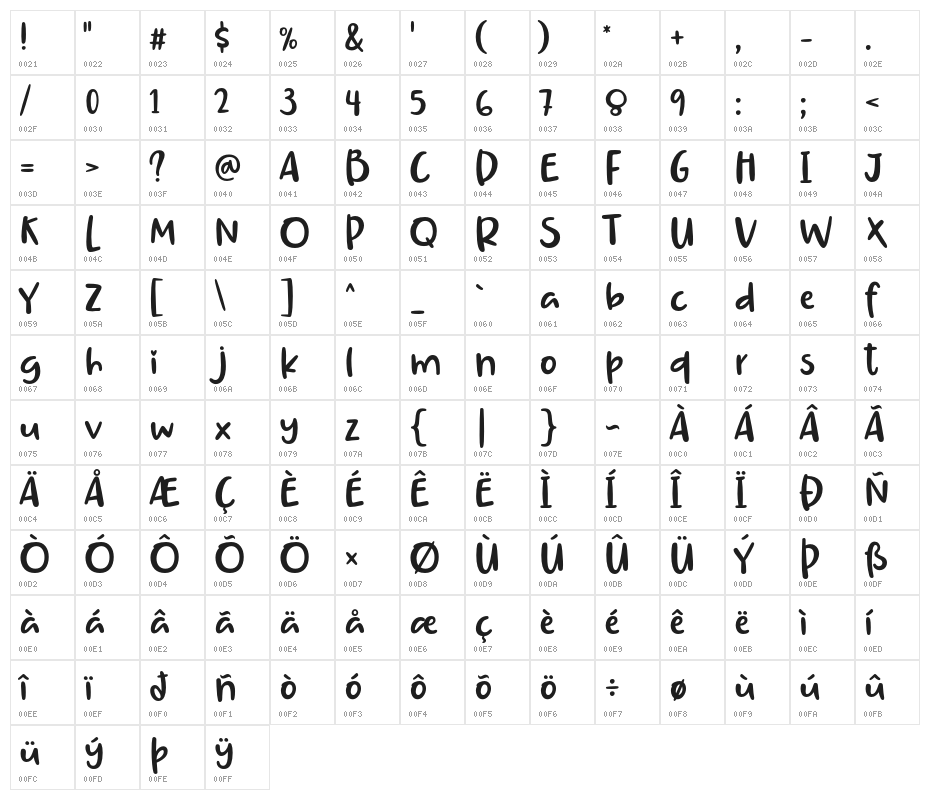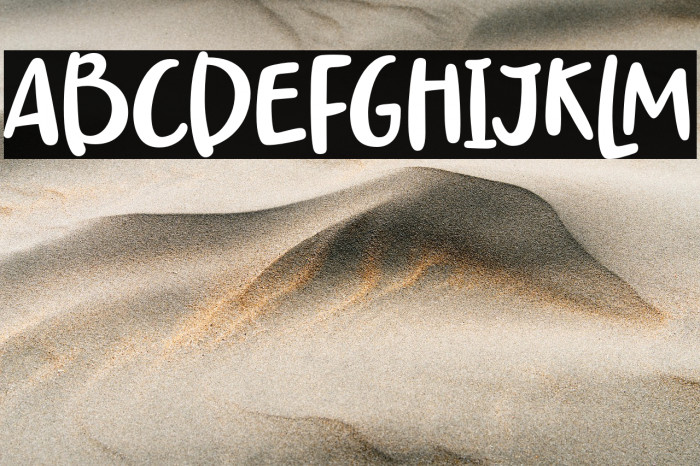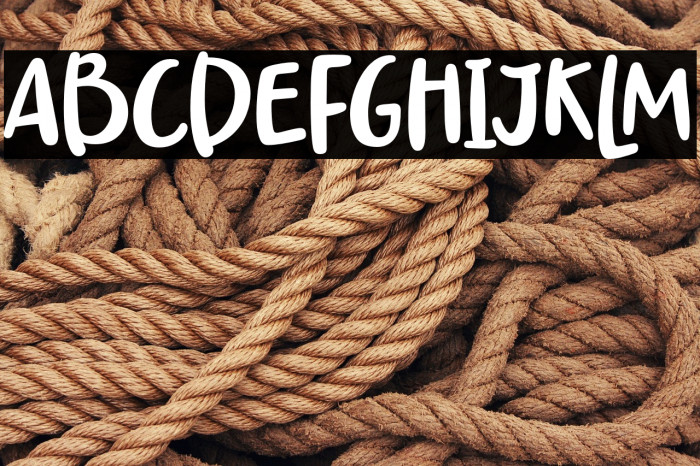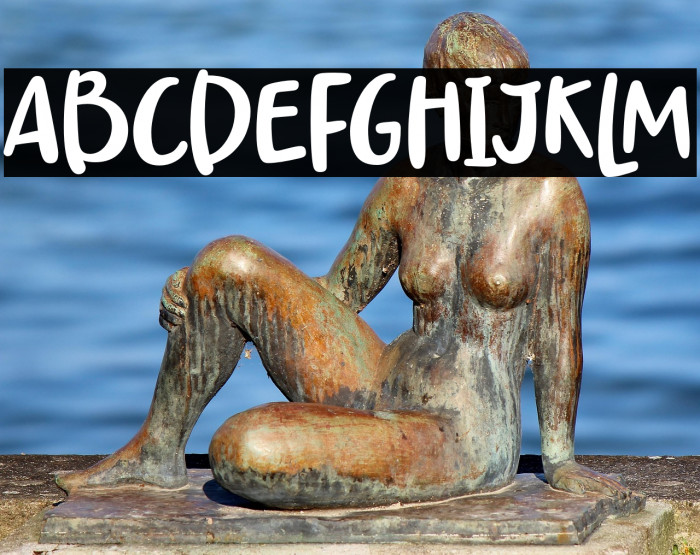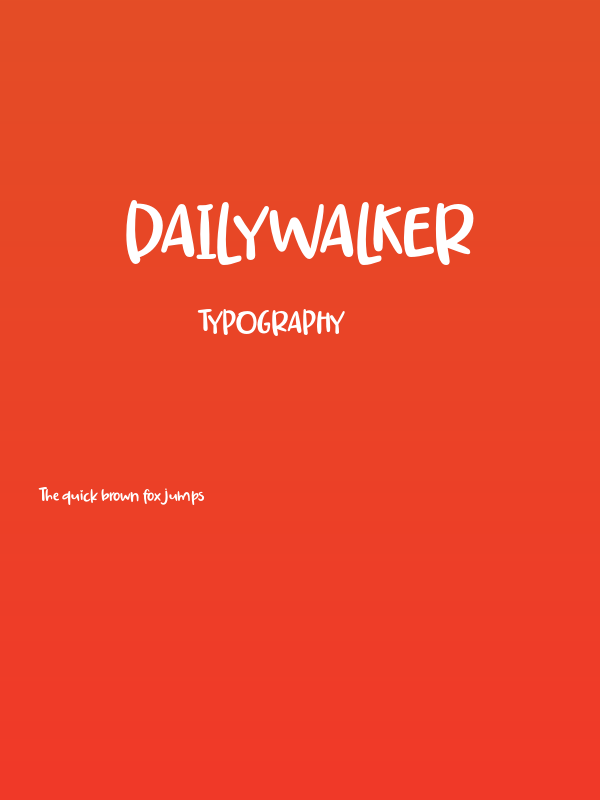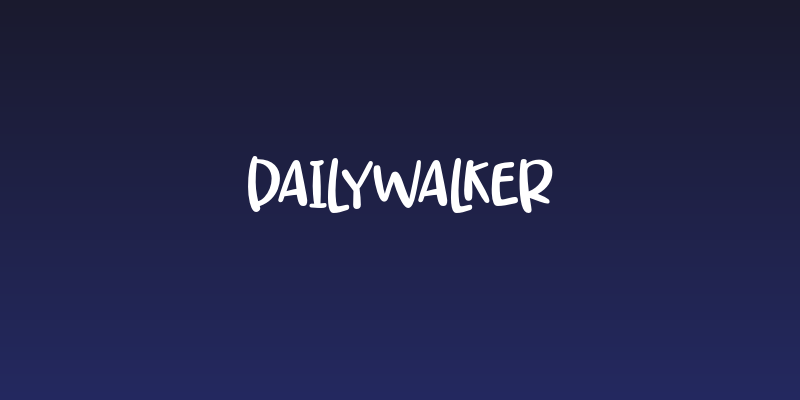
DailyWALKER Font
| Gesamtstil | Casual |
| Anwendungsfall | Headlines, Logos, Informal Text |
| Vorgeschlagene Projekte | Ideal for greeting cards, children's books, playful branding, and social media graphics. |